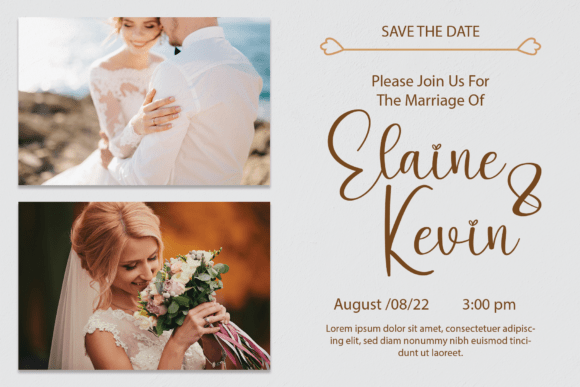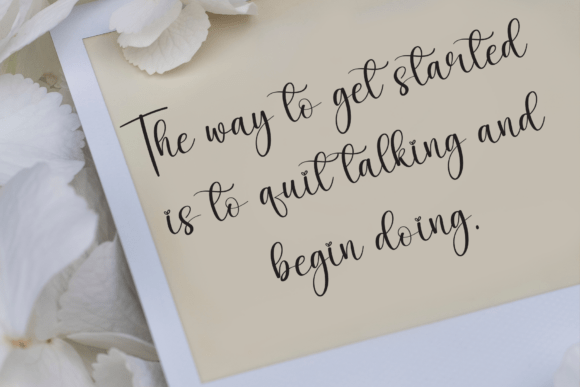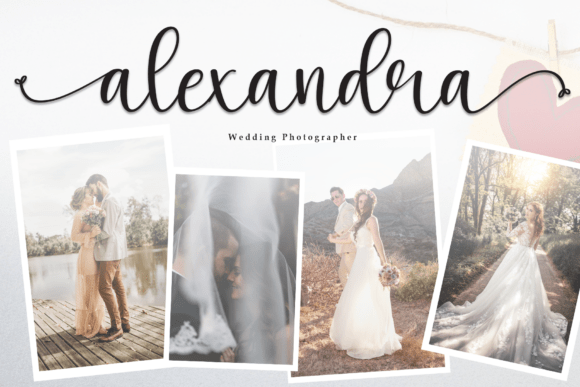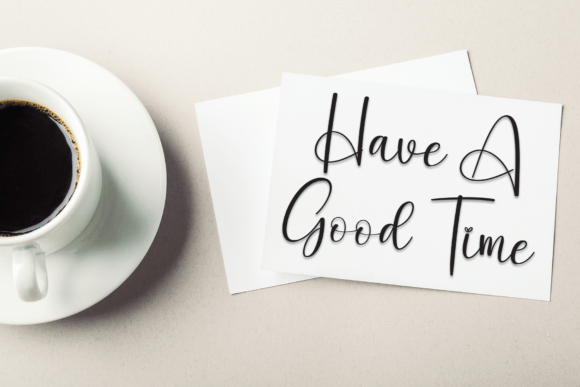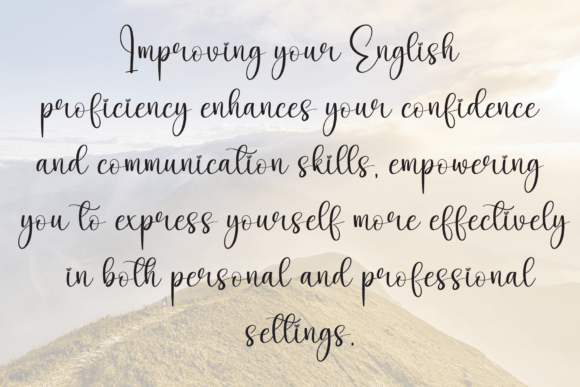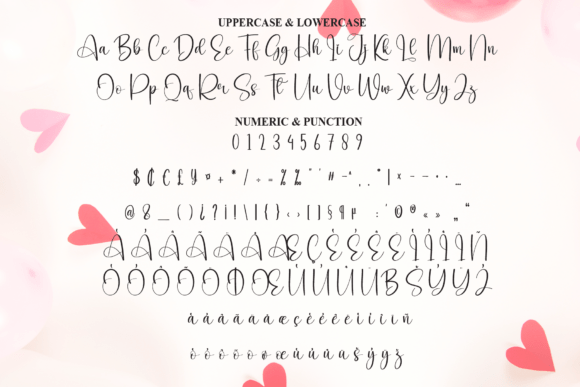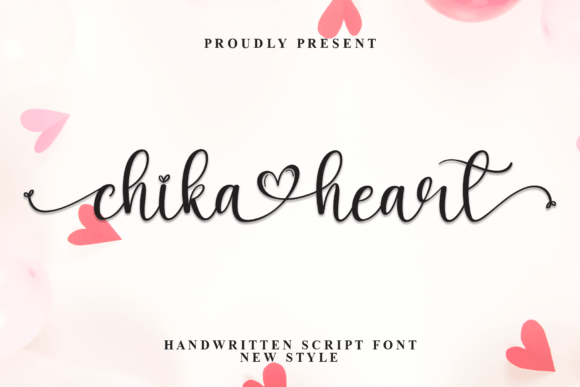
Introducing Chika Heart Font: Elevate Your Designs with Elegance and Charm
In the world of typography, fonts play a crucial role in conveying the tone and personality of a design. For designers and crafters seeking to add a touch of sophistication and elegance to their work, Chika Heart Font is an exceptional choice. This stylish handwritten script font is designed to exude charm and refinement, making it perfect for a variety of applications, from branding and invitations to stationery and more.
The Beauty of Chika Heart Font
Chika Heart Font boasts fluid, graceful strokes that bring a sense of luxury and poise to any design. Its smooth curves and natural flow create a timeless, refined look that is sure to captivate audiences. The font’s elegant appearance is characterized by its:
- Fluid strokes: Chika Heart’s strokes are carefully crafted to flow smoothly, creating a sense of continuity and harmony.
- Natural flow: The font’s natural flow gives it a human touch, making it perfect for designs that require a personal and sophisticated feel.
- Smooth curves: The smooth curves of Chika Heart Font add to its elegance, creating a visually appealing effect that enhances any design.
Perfect for Various Applications
Chika Heart Font’s versatility makes it an excellent choice for a range of design projects, including:
- Branding: Establish your brand’s identity with a sophisticated and elegant font that reflects your values and personality.
- Invitations: Create stunning invitations for special occasions, such as weddings, birthdays, and anniversaries, with a font that exudes luxury and refinement.
- Stationery: Elevate your stationery designs, including business cards, letterheads, and notebooks, with a font that adds a touch of elegance and sophistication.
Why Choose Chika Heart Font?
With so many fonts available, why choose Chika Heart Font? Here are just a few reasons:
- Unique and distinctive: Chika Heart Font stands out from the crowd with its elegant and refined appearance.
- Easy to read: Despite its ornate appearance, Chika Heart Font is easy to read, making it perfect for body text and headlines.
- Highly versatile: Use Chika Heart Font for a variety of design projects, from digital designs to print materials.
Chika Heart Font is a stylish and elegant handwritten script font that is sure to elevate your designs. With its fluid strokes, natural flow, and smooth curves, it adds a personal and sophisticated touch to any project. Whether you’re a designer or crafter, Chika Heart Font is an excellent choice for branding, invitations, stationery, and more. So why wait? Discover the beauty of Chika Heart Font and take your designs to the next level.